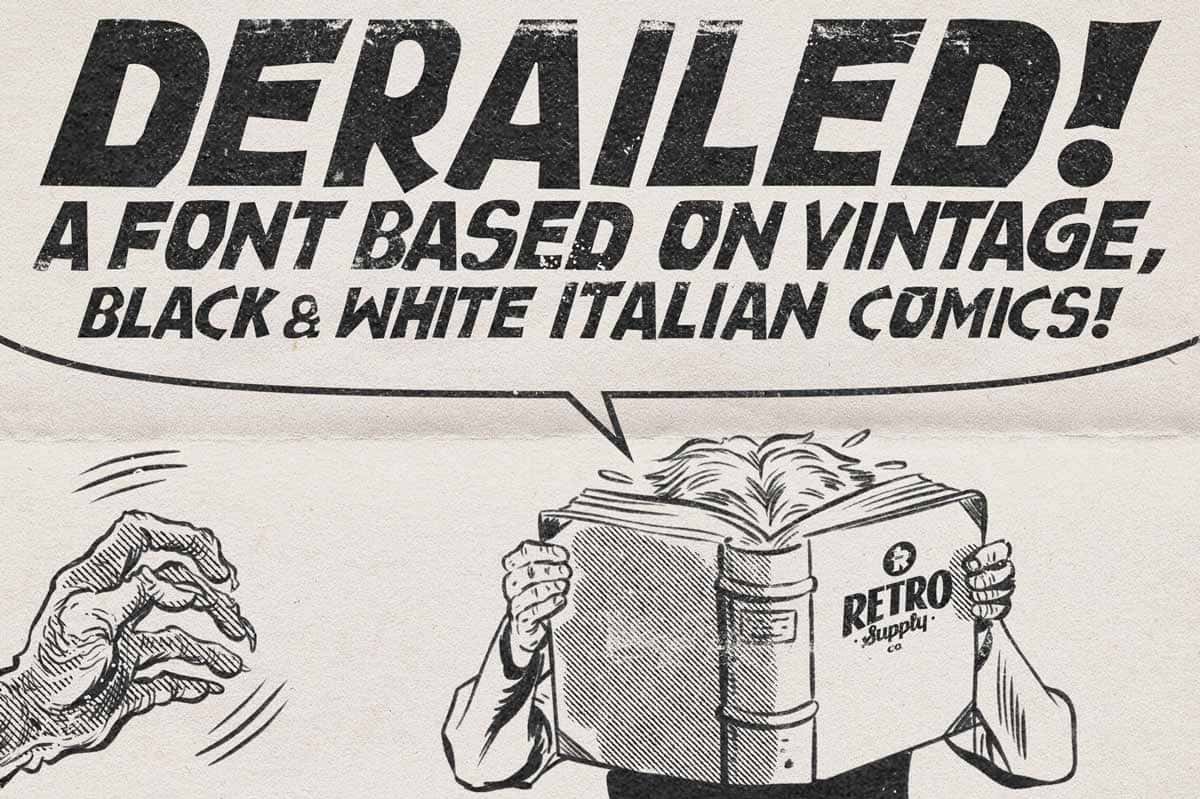
DERAILED!
Some of the best comic books ever produced were made in Italy forty or fifty years ago.
Called “Fumetti neri,” these comics were stark black and white and featured stories about vampires, thieves and killers. They were funnier (and sexier) than their US counterparts.
DERAILED! is the spiritual essence of these dark Italian titles as distilled by artist Christopher Sperandio, creator of the popular comics font TOOM.
Scuro e sardonico, DERAILED! è meglio usato in piccole quantità. (Dark and sardonic, DERAILED! is best used in small amounts).
• 1 all-caps alphanumeric font.
• Includes punctuation and special characters.
• Includes copyright, trademark, and reserved symbols.